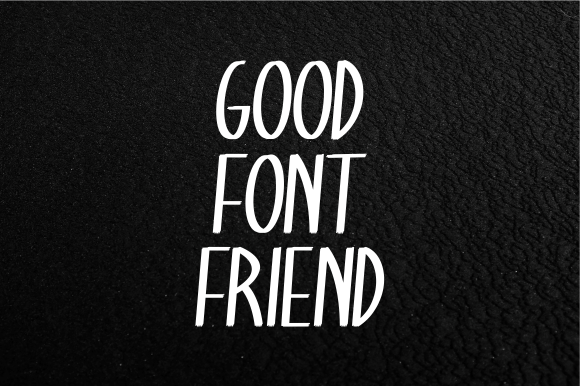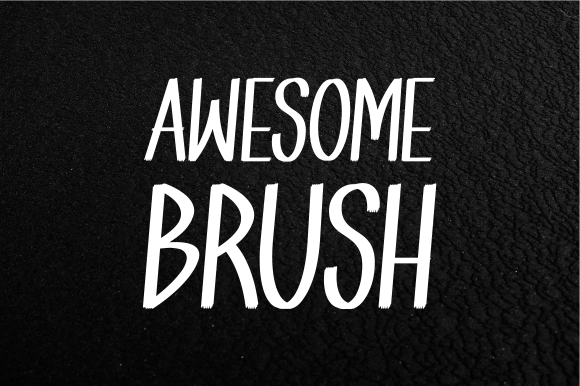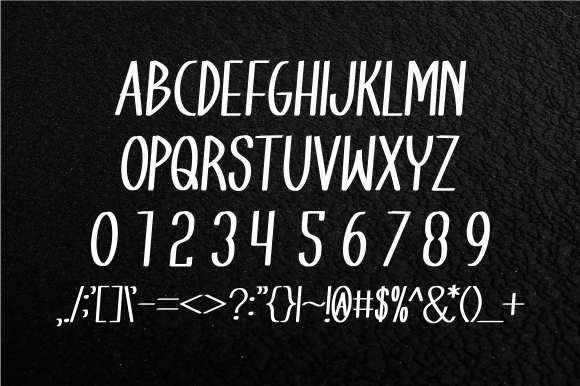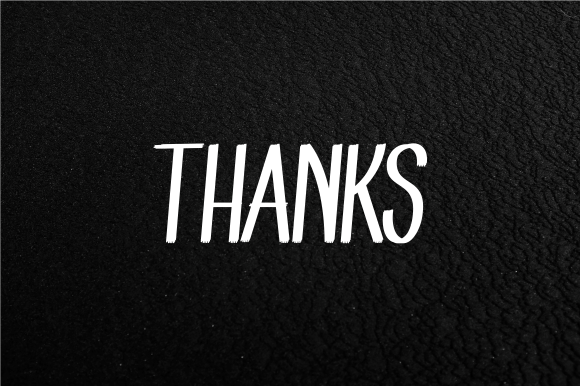
Introduction to Kirainbrush Font
Kirainbrush is an all-caps handwritten font, perfect for your upcoming creative projects.
Add it to book covers, digital notes, social media posts, posters, or anything that needs an easy-to-read handwritten look .
Key Features of Kirainbrush Font
Why Choose Kirainbrush Font?
Kirainbrush Font offers exceptional quality and versatility, making it a valuable addition to your design toolkit. Whether you’re creating for personal projects or commercial use, Kirainbrush Font delivers professional results.